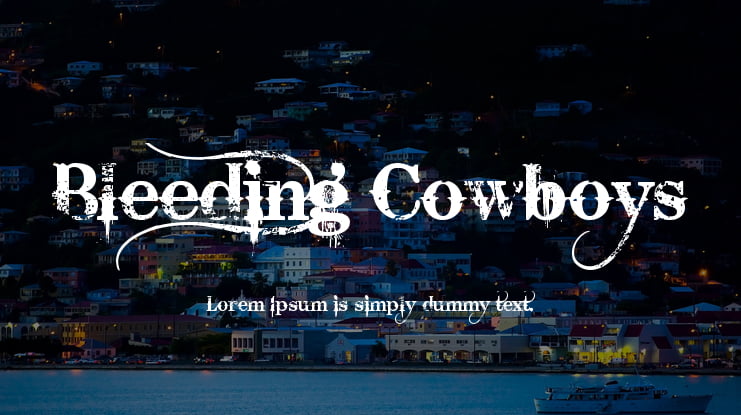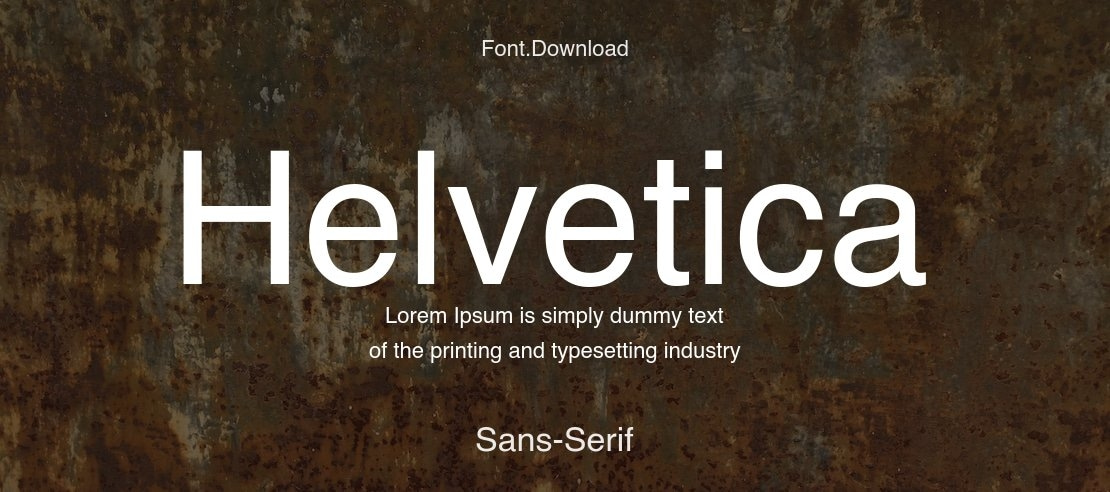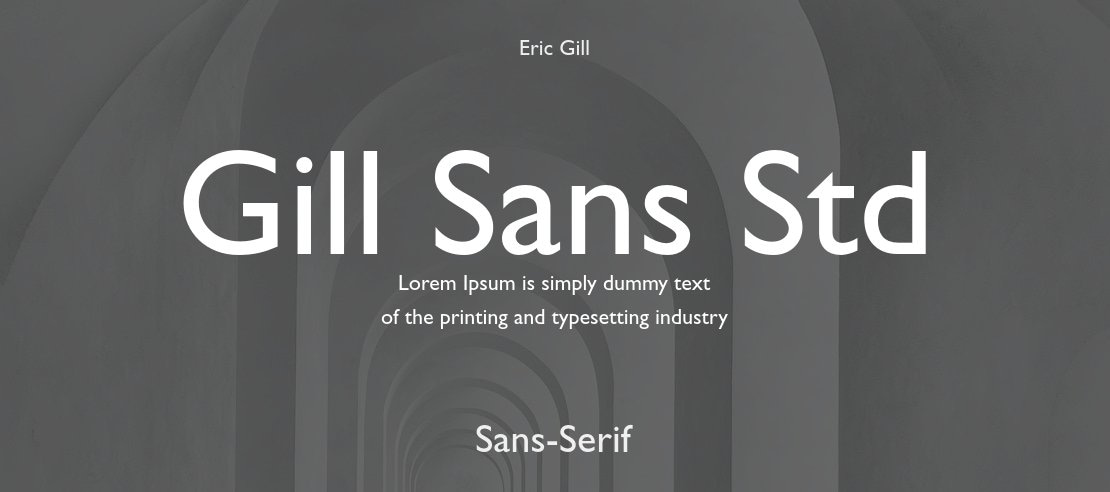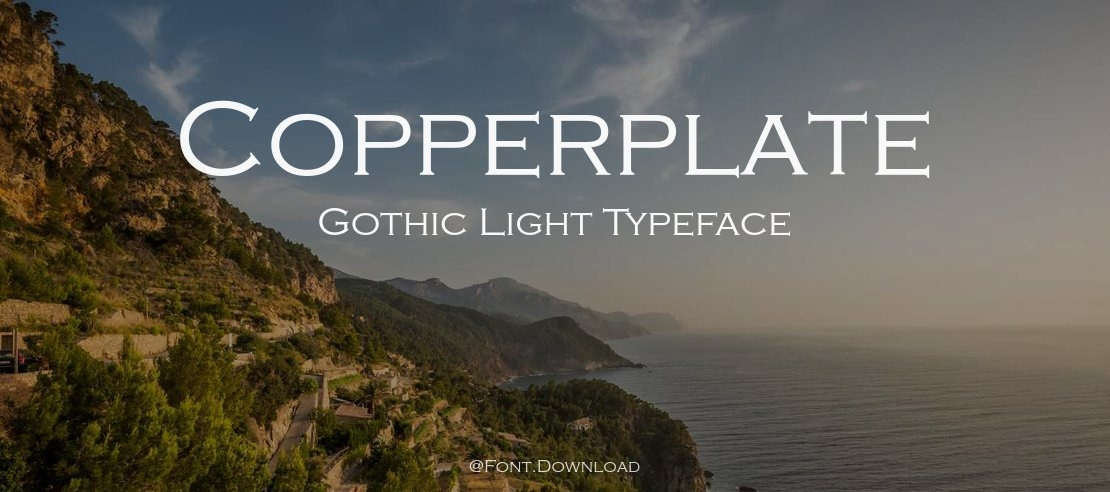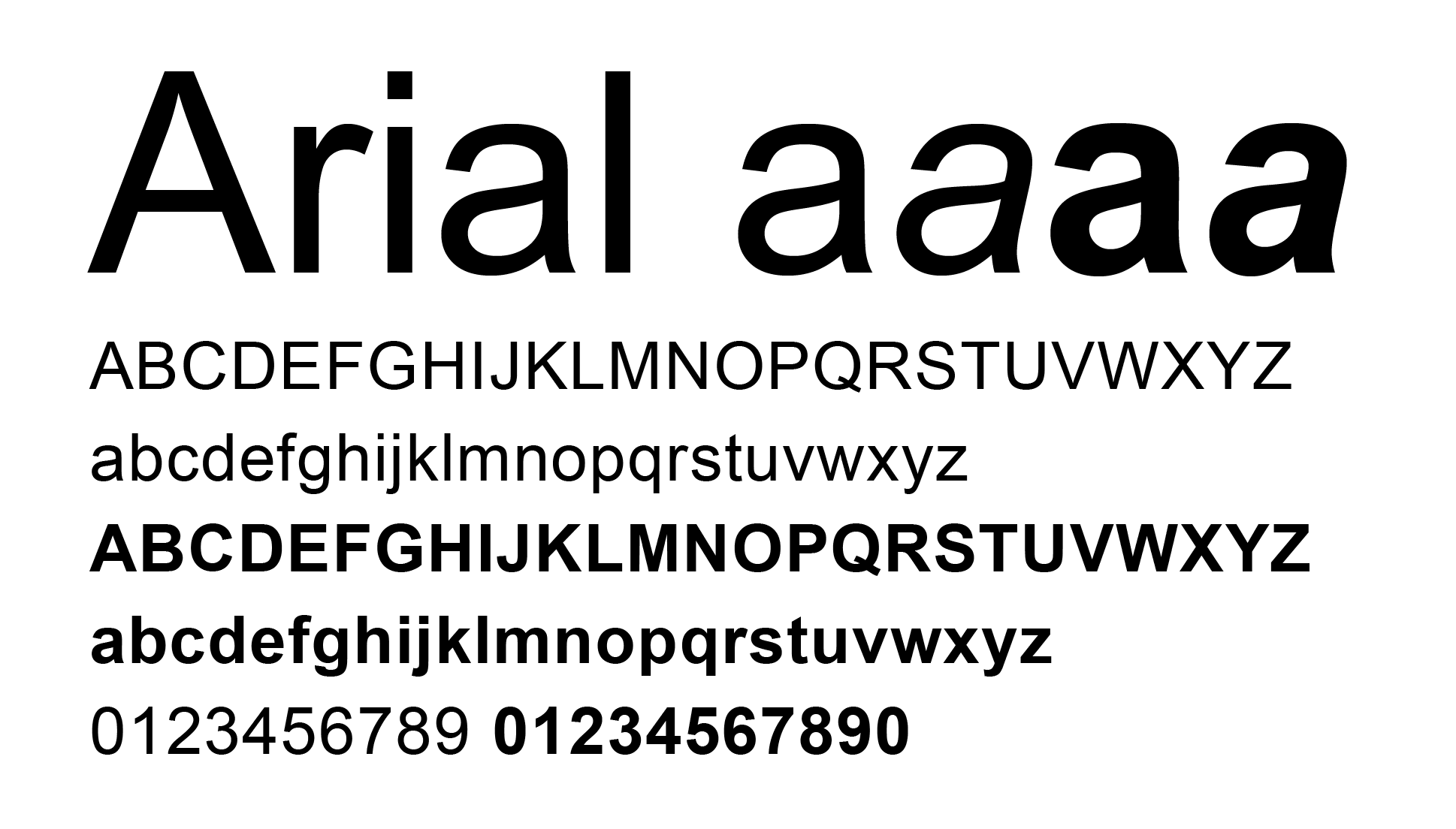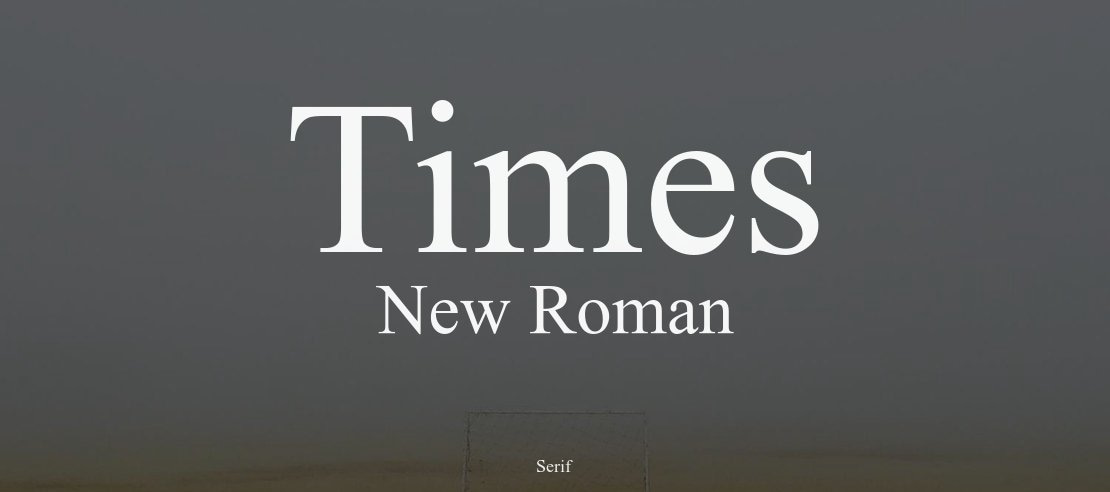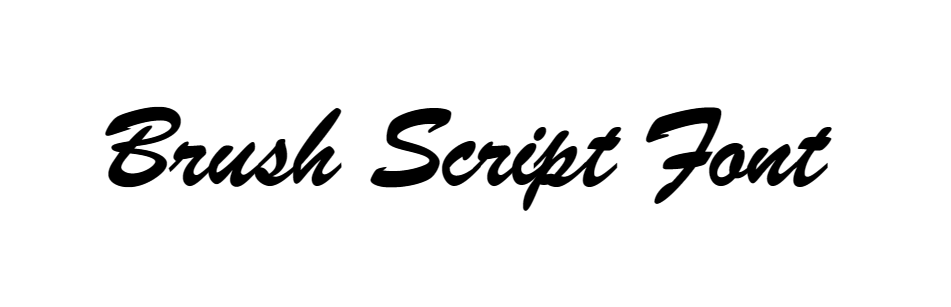
Designers Agree: This is the Top 15 World’s Most Hated Font!
The most hated font is often one that has been misused, overused, or simply poorly designed. While some typefaces are praised for their elegance and readability, others have earned a notorious reputation for being outdated, tacky, or difficult to read. We’ll tackle the worst offenders and why they’re so disliked.
Key Takeaways:
• Fonts are hated because they’re widely misused, poorly designed, and seem lazy.
• Most of the hated fonts are standard in the past, indicating a shift in preference.
Top 15 of The Most Hated Fonts
A font might be deemed ugly due to poor kerning, excessive embellishments, or awkward letterforms. Designers cringe when they see these fonts slapped on a piece of media. Moreover, bad associations also made some fonts universally loathed. Here’s a look at 15 fonts that designers love to hate.
1. Comic Sans
Alt text: Comic Sans the Most Hated Font (Medium)
Why is Comic Sans the most hated font? The font was never implemented for its intended purpose, which is for an animated cartoon dog speech bubble at Microsoft. But became widely available, leading to its use in various inappropriate contexts such as formal documents, ads, and even serious notices.
2. Papyrus
Alt Text: Papyrus Hated Font (envantotuts+)
Papyrus has long been ridiculed for its faux-historical look. It was popular in the early ’90s, but today, the font feels like a cheap trick for amateur designers looking for an instant “exotic” look.
3. Arial
Alt Text: Arial is Everywhere (designworkplan)
It was the history that made Arial the most hated font. Supposedly, Microsoft made Arial by copying Helvetica; that way, they could avoid paying royalty fees, and then making it a default font is just plain egregious.
4. Times New Roman
Alt Text: Outdated Times New Roman Font (Font Download)
This font was Microsoft’s default font between 1992 and 2007, so you can say that it’s outdated. More importantly, Times New Roman was the popular choice in professional and academic settings. Thus, designers would love to avoid reminding you of those stressful days at school.
5. Brush Script
Alt Text: Heavy Font Brush Script (Dafont)
Brush Script tries to mimic casual handwriting but ends up being too difficult to read. The font has a constant heavy look that makes it visually overwhelming. Plus, even back in the day, the font was already being overused in greeting cards and culinary signage.
6. Trajan
Alt Text: Outdated Font Trajan (Font Download)
The Trajan font was inspired by an ancient inscription from Rome. The font then was widely used in many movie posters. So, outdated is an understatement. Plus, the font is an all-caps typeface, limiting its versatility.
7. Bradley Hand
Alt Text: The Hated Bradley Hand (Dafont)
Having the same problem with Comic Sans as the most hated font, Bradley Hand is also too informal for many designs nowadays. The only option is to use it on a personal project such as invitations, greeting cards, or scrapbooks.
8. Hobo
Alt Text: Most Hated Font Hobo (Font Download)
With its bubbly, cartoonish letterforms and lack of straight lines, Hobo has succeeded in positioning itself as a childish font. Despite that, this font is popular for logos and branding because it is hard to read on long texts.
9. Impact
Alt Text: Blocky Impact Font (Font Download)
Despite its name, Impact fails to impress many designers. Its thick, blocky look is overused in internet memes, making it feel cheap and cliché.
10. Courier
Alt Text: Typewriter Font Courier (Font Supply)
Mimicking a typewriter’s look, the Courier is often seen as uninspiring and outdated. The font has monospaced letters, which hinder its versatility in today’s copy designs.
11. Bleeding Cowboys
Alt Text: Grunge Bleeding Cowboy (Cufon Fonts)
With its grunge, distressed aesthetic, Bleeding Cowboys was once popular in edgy designs. However, the font suffers from amateur overuse, such as low-quality tattoos and cheap t-shirts. Now, the font is associated with horrible designs.
12. Curlz MT
Alt Text: Curly Curlz MT Font (Dafont)
Curlz MT was made in 1995. The font achieves its playful place using its curly letterforms. This font was a popular choice for children’s books, party invites, and cute designs. However, the style is now outdated, even for youthful designs.
13. Helvetica